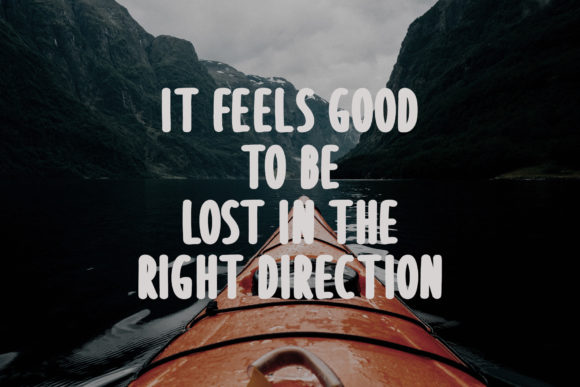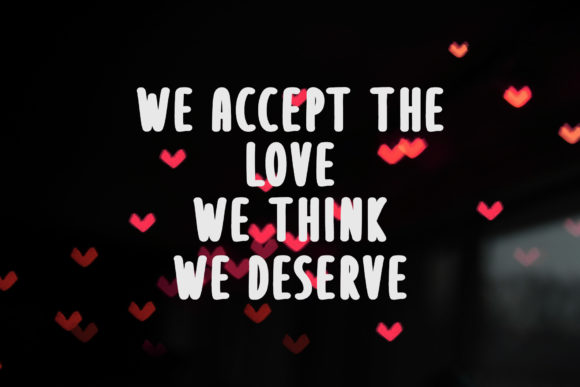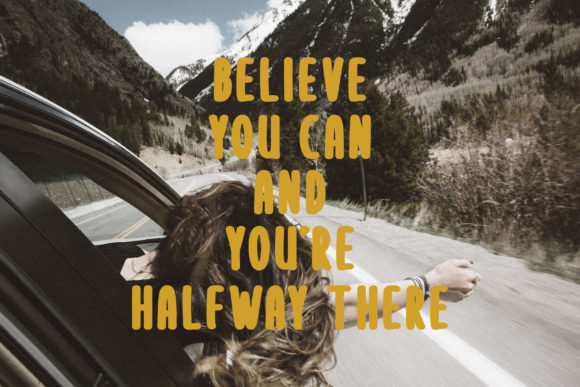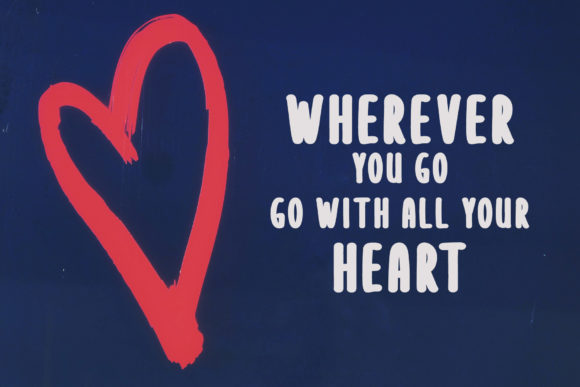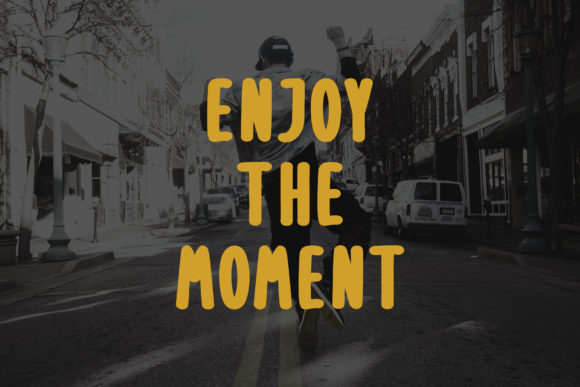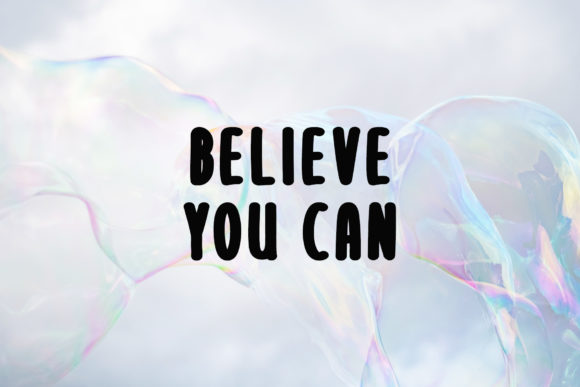
Introducing Bubles Font: The Cool Display Font That Will Surprise You!
Are you tired of using the same old fonts for your design projects? Look no further! We’re excited to introduce Bubles, a cool display font that’s sure to take your designs to the next level. Whether you’re a designer, crafter, or DIY enthusiast, Bubles is the perfect addition to your font collection.
What is Bubles Font?
Bubles is a unique and eye-catching display font that’s perfect for making a statement. Its distinctive bubble-like design makes it stand out from the crowd, adding a touch of fun and playfulness to any design project. With its clean and crisp lines, Bubles is versatile enough to be used for a wide range of applications, from branding and product packaging to invitations, quotes, t-shirts, labels, posters, and more.
Why You’ll Love Bubles Font
So, what makes Bubles so special? Here are just a few reasons why you’ll love this amazing font:
- Perfect for Branding: Bubles is an excellent choice for creating memorable brand identities. Its unique design will help your brand stand out and make a lasting impression on your customers.
- Versatile: Bubles is suitable for a wide range of design projects, from digital designs to print materials. Use it to create stunning visuals that will capture your audience’s attention.
- Easy to Read: Despite its playful design, Bubles is surprisingly easy to read, making it perfect for use in quotes, posters, and other text-heavy designs.
- Customizable: With Bubles, you can experiment with different colors, sizes, and styles to create a unique look that suits your design needs.
How to Use Bubles Font
Using Bubles is incredibly easy. Here are a few tips to get you started:
- Pair it with Other Fonts: Combine Bubles with other fonts to create a visually appealing contrast. Use a bold font for headings and Bubles for body text, or vice versa.
- Experiment with Colors: Bubles looks great in a variety of colors. Try using bright and bold colors to add a pop of color to your designs.
- Play with Size: Bubles is perfect for use in large and small sizes. Experiment with different sizes to create visual interest in your designs.
What You Can Create with Bubles Font
The possibilities are endless with Bubles! Here are a few ideas to get you started:
- Branding Materials: Use Bubles to create stunning logos, business cards, and brochures that will make your brand stand out.
- Social Media Graphics: Create eye-catching social media graphics, such as Facebook posts, Instagram stories, and Twitter headers, using Bubles.
- Invitations and Party Decor: Use Bubles to create custom invitations, banners, and party decor that will make your events unforgettable.
- T-Shirts and Merchandise: Design amazing t-shirts, hoodies, and other merchandise using Bubles.
In conclusion, Bubles is an incredible display font that’s sure to take your design projects to the next level. Its unique bubble-like design, versatility, and ease of use make it a must-have for designers, crafters, and DIY enthusiasts. So why wait? Download Bubles today and start creating stunning designs that will leave a lasting impression!